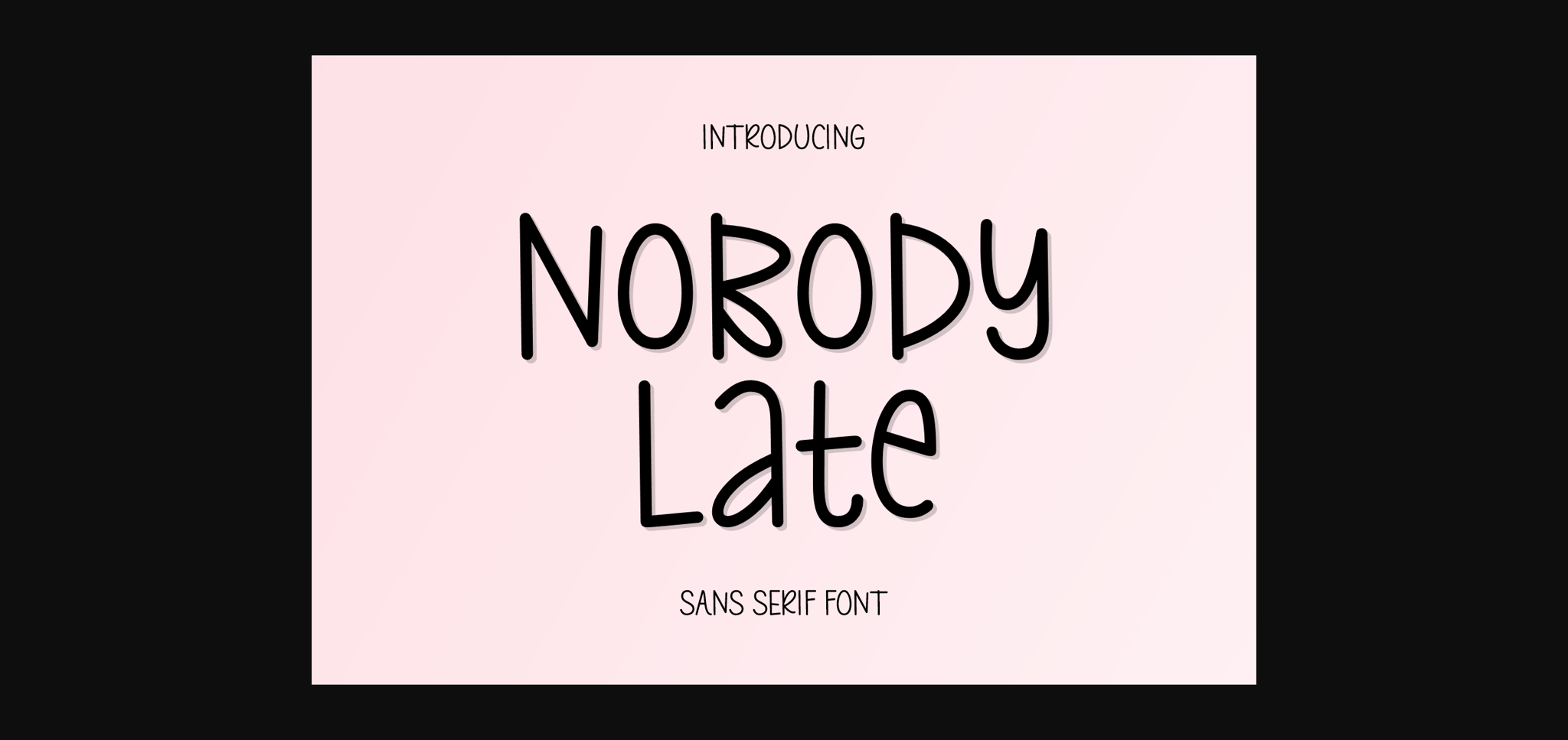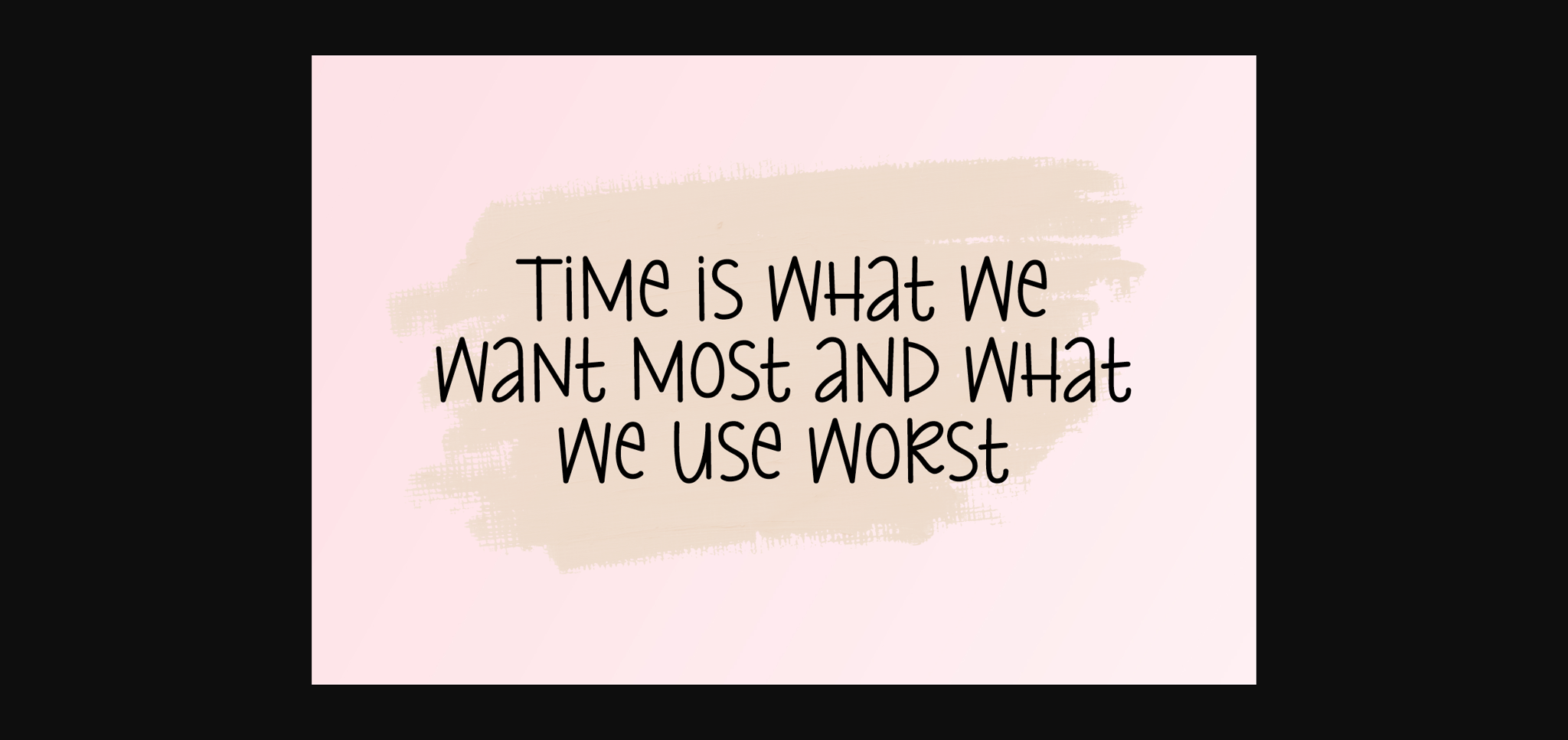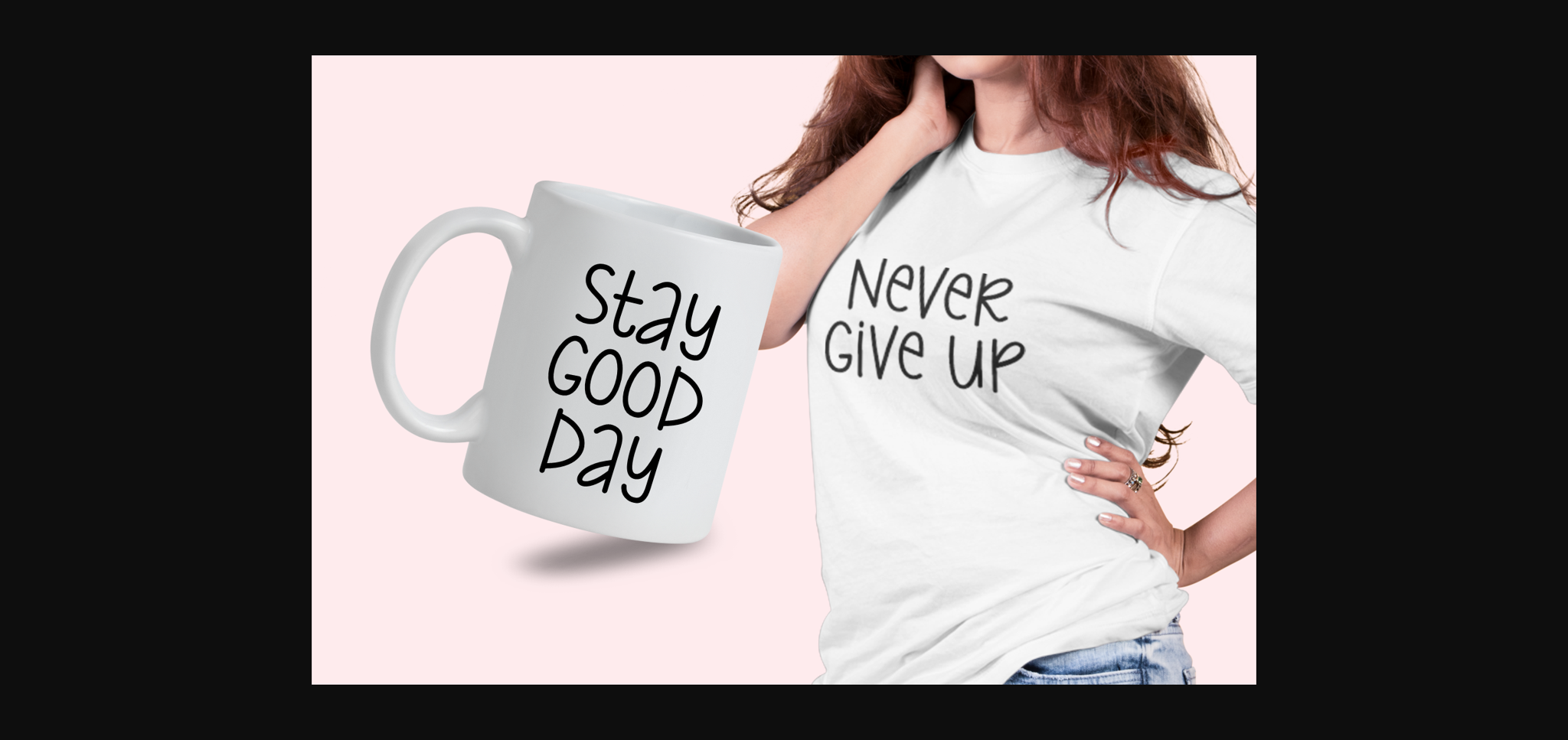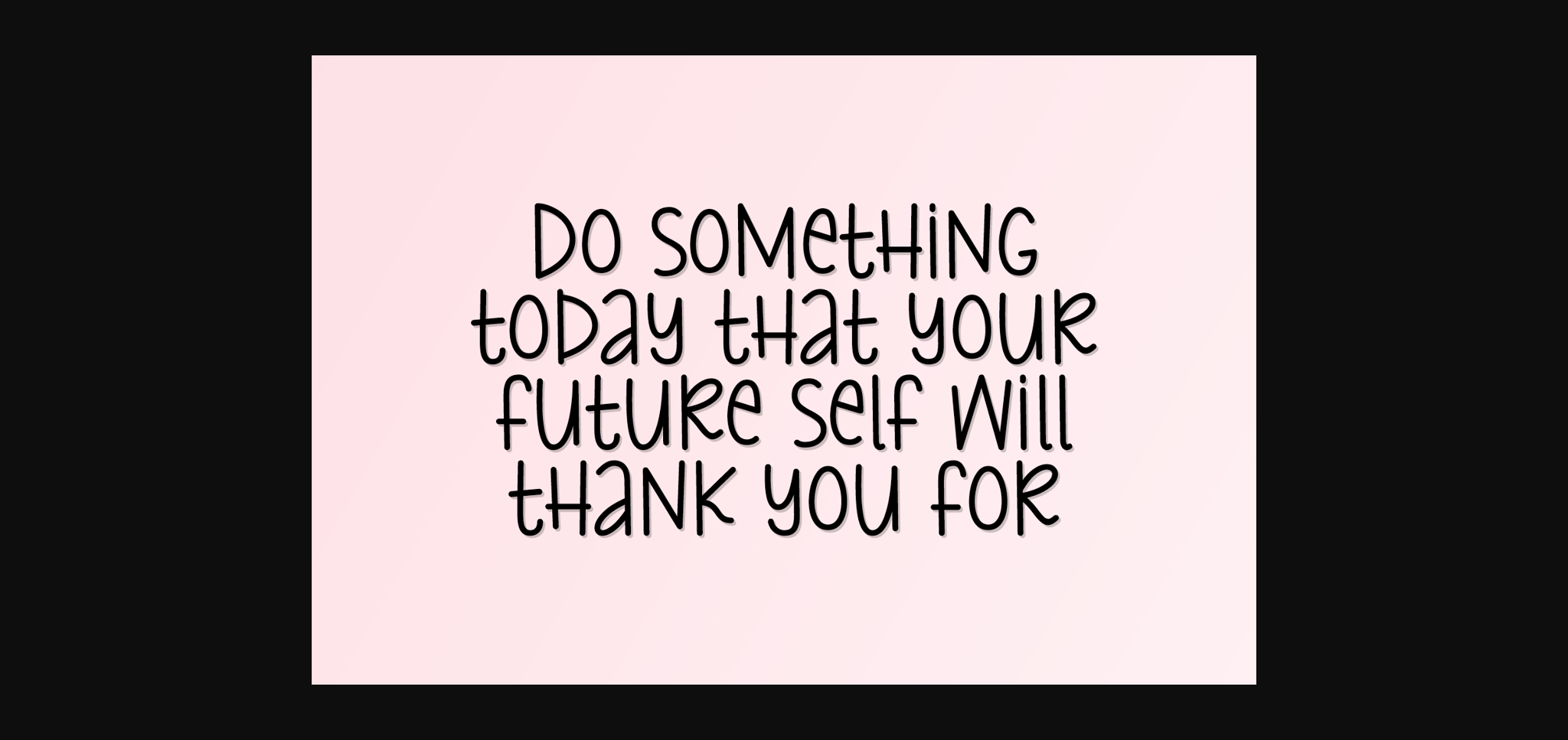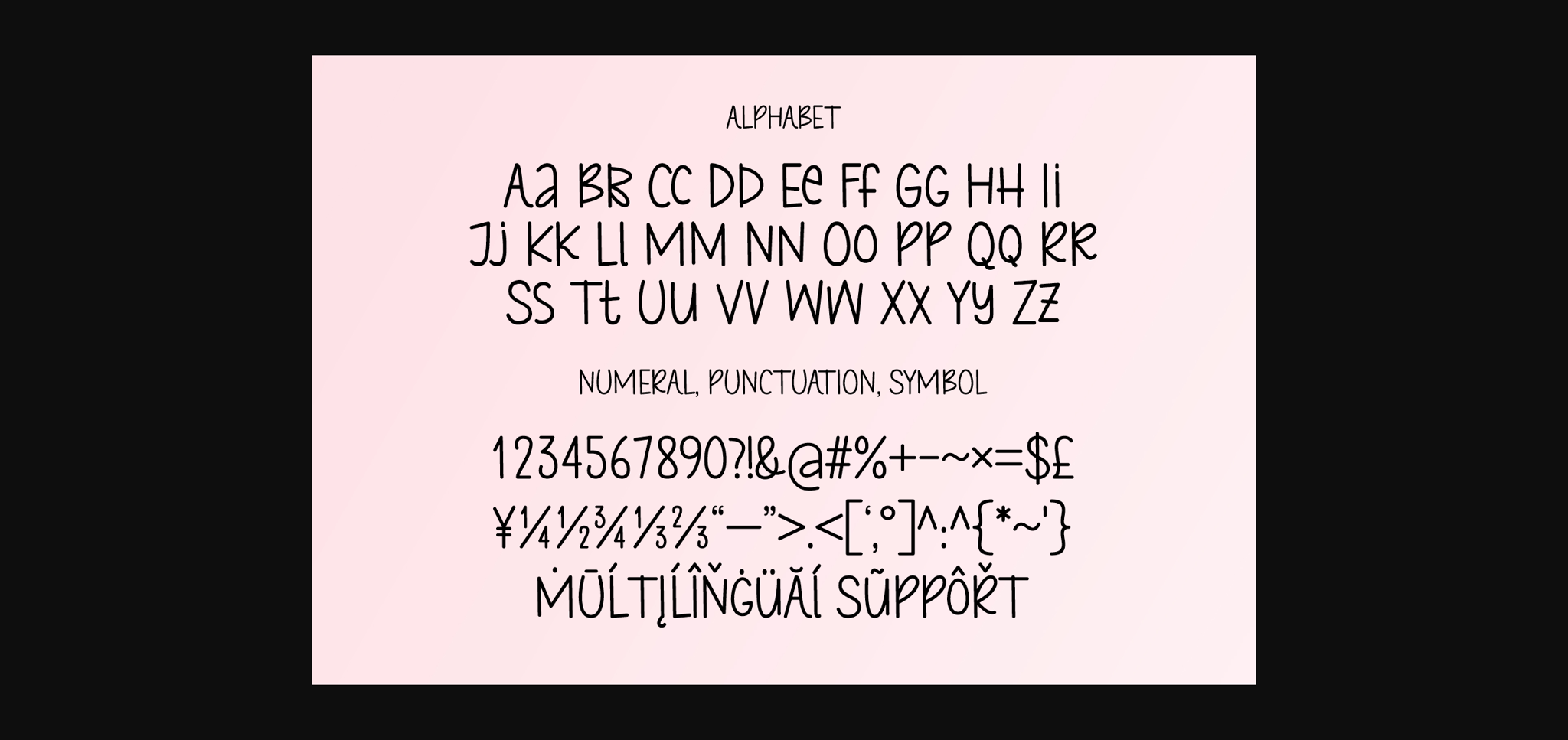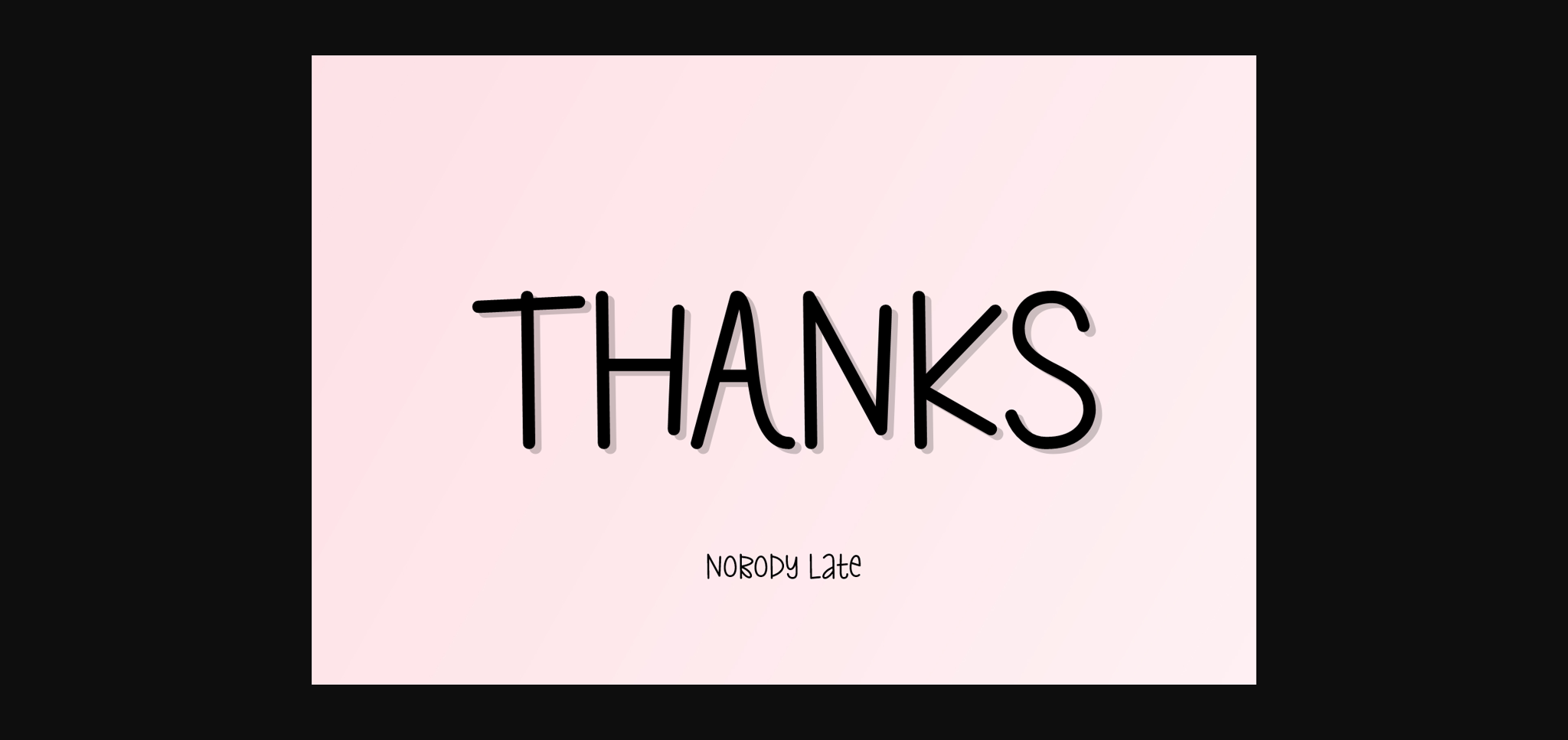
Nobody Late Font
About Nobody Late Font
Nobody Late is a playful sans serif font that adds a touch of fun to your projects. It’s simple, easy to use, and perfect for anything from posters to social media graphics. With its cheerful vibe, Nobody Late helps your text stand out with style.